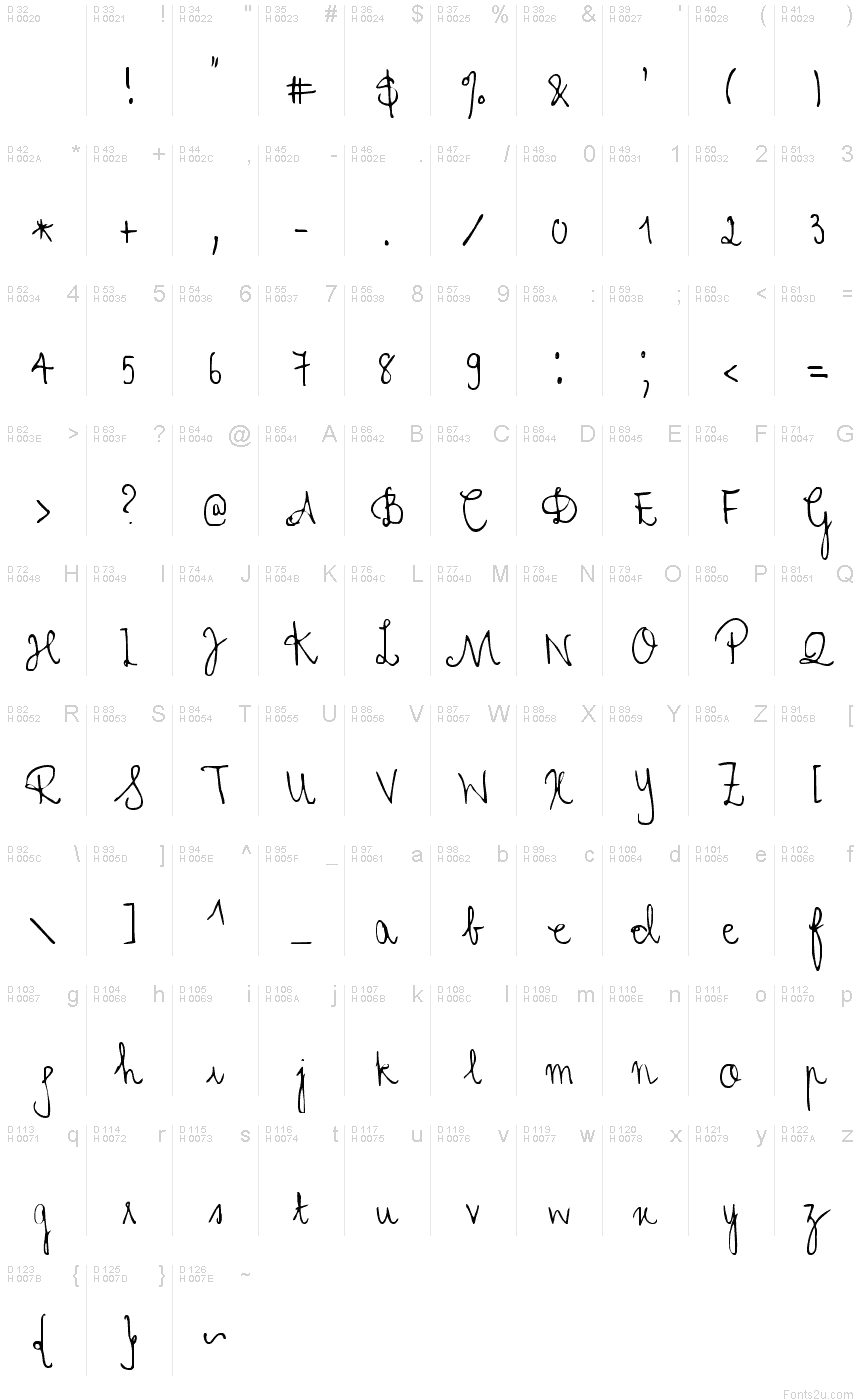
Cher Font by Ellinor Rapp of Font Garden is a free calligraphic script with slender strokes and an informal signature quality. Tall loops and sharp turns keep the lettering animated.
The sweeping lines echo loose ink illustration, making the font a convincing fit for fashion branding, beauty packaging, and personal stationery. In magazine design, its wiry forms can become part of an illustrated cover concept, with event invitations offering another natural setting.